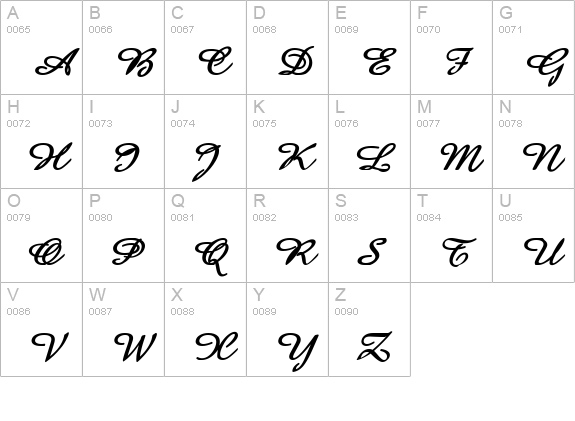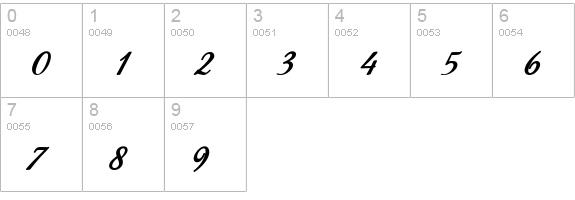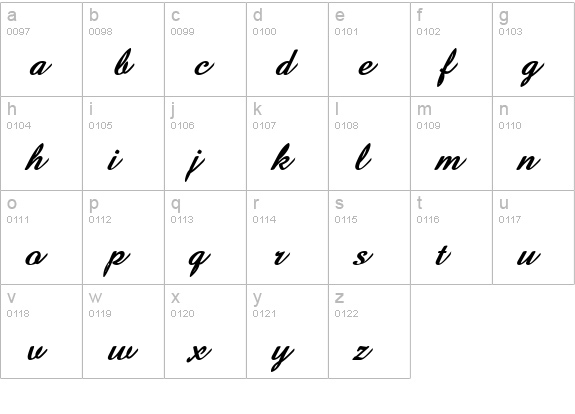
Amaze D Bold Italic Font Details
Amaze D Bold Italic is a strong, high-contrast, italic variant in the Amaze typeface family \xE2\x80\x94 well suited to headlines, attention-grabbing titles, and strong calls-to-action.
Amaze D Bold Italic font is a striking and modern typeface that exudes elegance and sophistication. Its bold and italic design adds a touch of flair to any project, making it perfect for titles, headlines, and branding materials. The sleek, sleek curves and sharp angles of this font make it stand out from the crowd and grab the viewer's attention. What's even better is that Amaze D Bold Italic font is available for free download at FontsMarket.com. Yes, you read that right - you can get your hands on this stunning font without spending a dime. Whether you're a designer looking to enhance your creations or just someone who appreciates beautiful typography, Amaze D Bold Italic font is a must-have in your font collection. Don't miss out on the opportunity to elevate your designs with this captivating typeface - download it for free today!